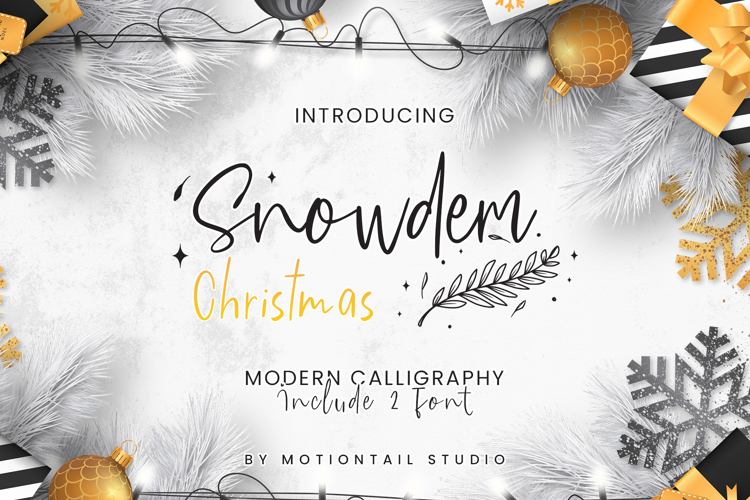
Snowdem Christmas Font
Script Style
Snowdem Christmas font a display typeface awesome character and 2 file font regular and Script. Snowdem Christmast font it’s perfect for namecard, poster, logo, magazine, cover, banner, tshirt and headers, or even large-scale artwork.
• Uppercase & Lowercase
• Numeral & Punctuation
• Multilingual support ÀÁÂÃÄÅÇEÈÉÊËIÌÍÎÏNÑOØÒÓÔÕÖUÙÜÚÛWYÝŸŸÆ